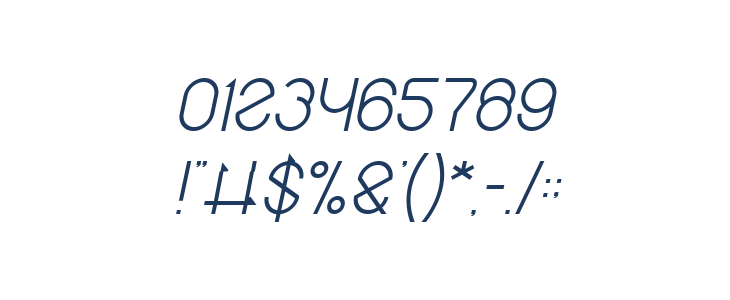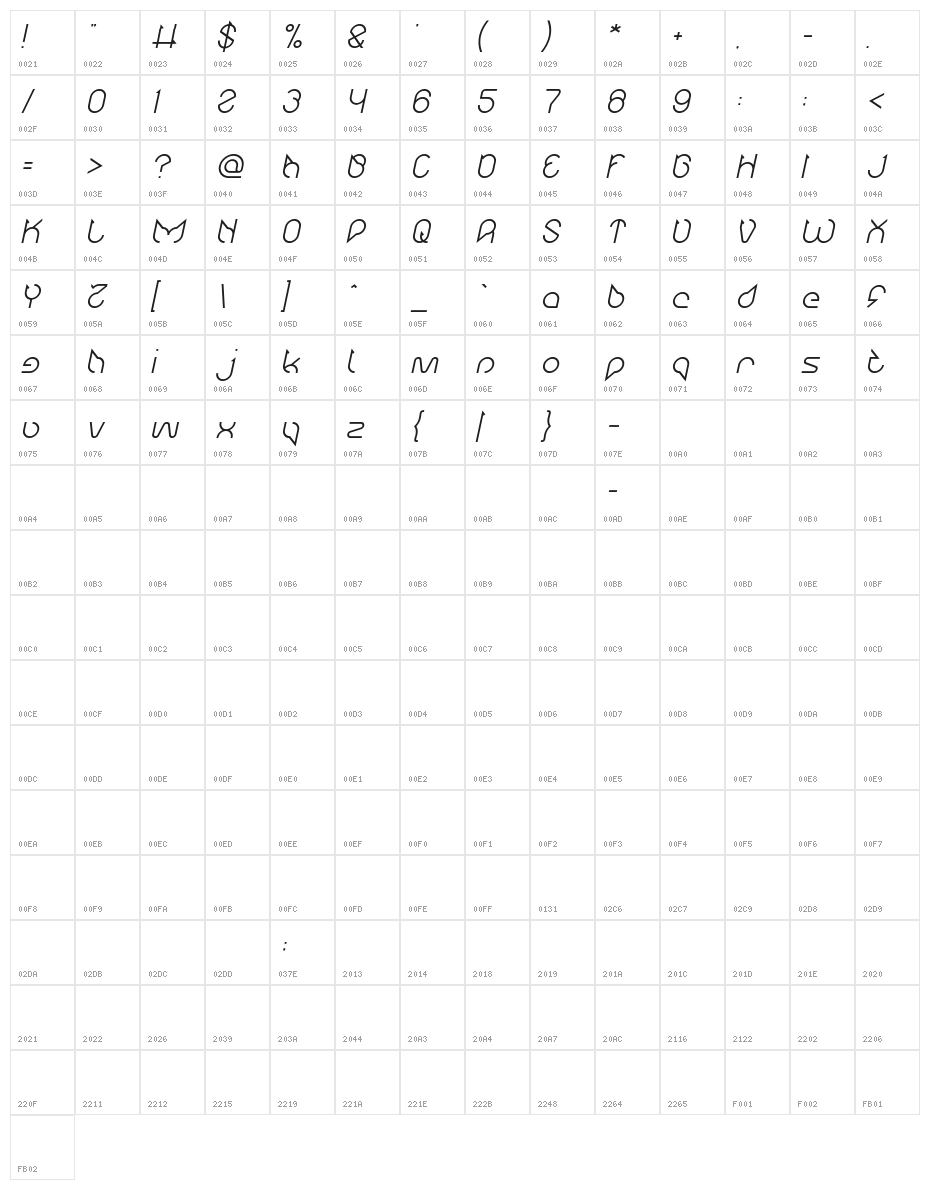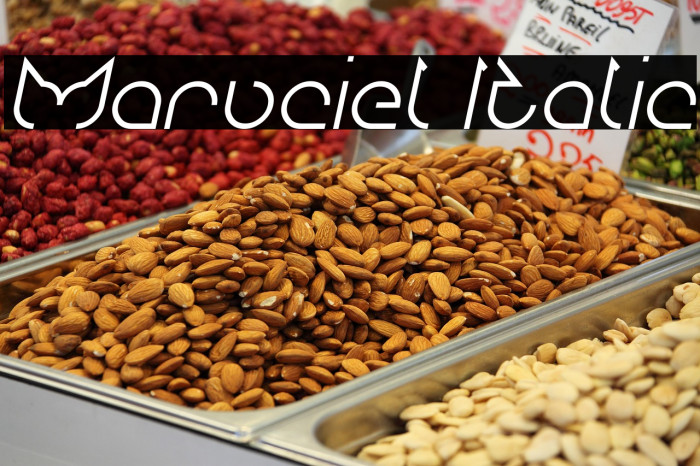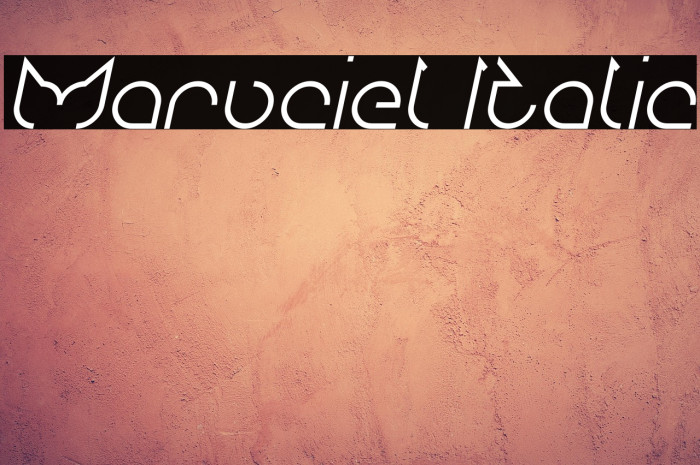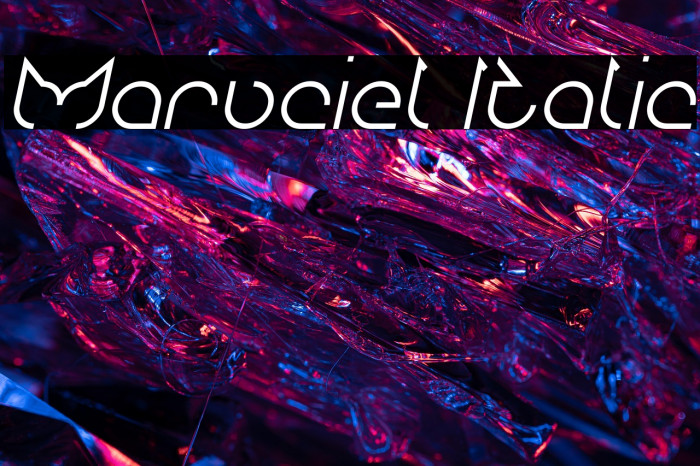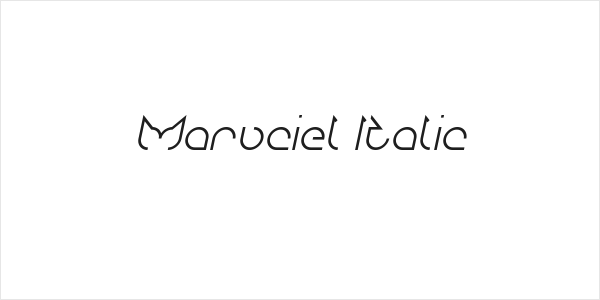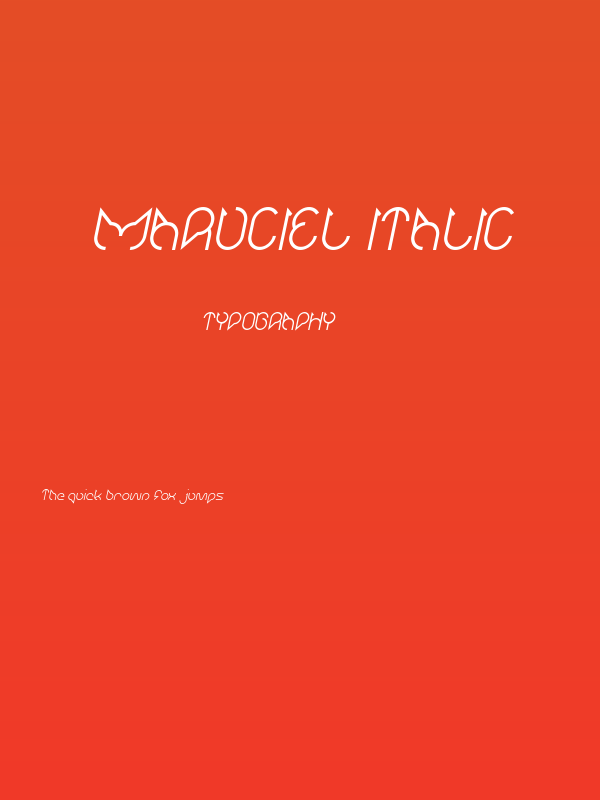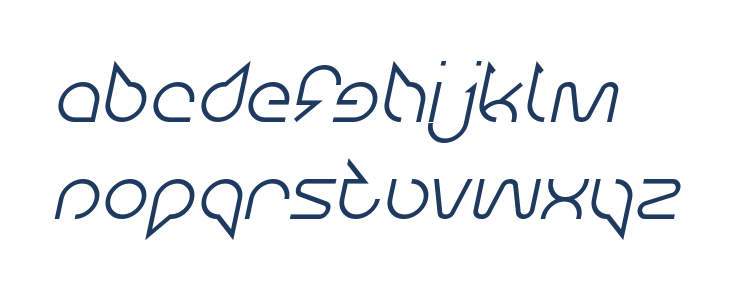
Maruciel Italic Font
Maruciel Italic Description
This font features a unique blend of modern and decorative styles, characterized by its italicized, flowing letterforms. The uppercase letters exhibit a dynamic, angular design with a slight slant, while the lowercase letters maintain a consistent, fluid motion. The numerals are distinct and easily legible, complementing the overall aesthetic. Special characters are crafted with the same attention to detail, ensuring a cohesive look across all glyphs. The font's design is both artistic and functional, making it suitable for various creative applications.
| Use Case | Headlines, Logos, Artistic projects |
| Proposed Projects | Ideal for branding, logos, headlines, and artistic projects that require a modern yet decorative touch. |